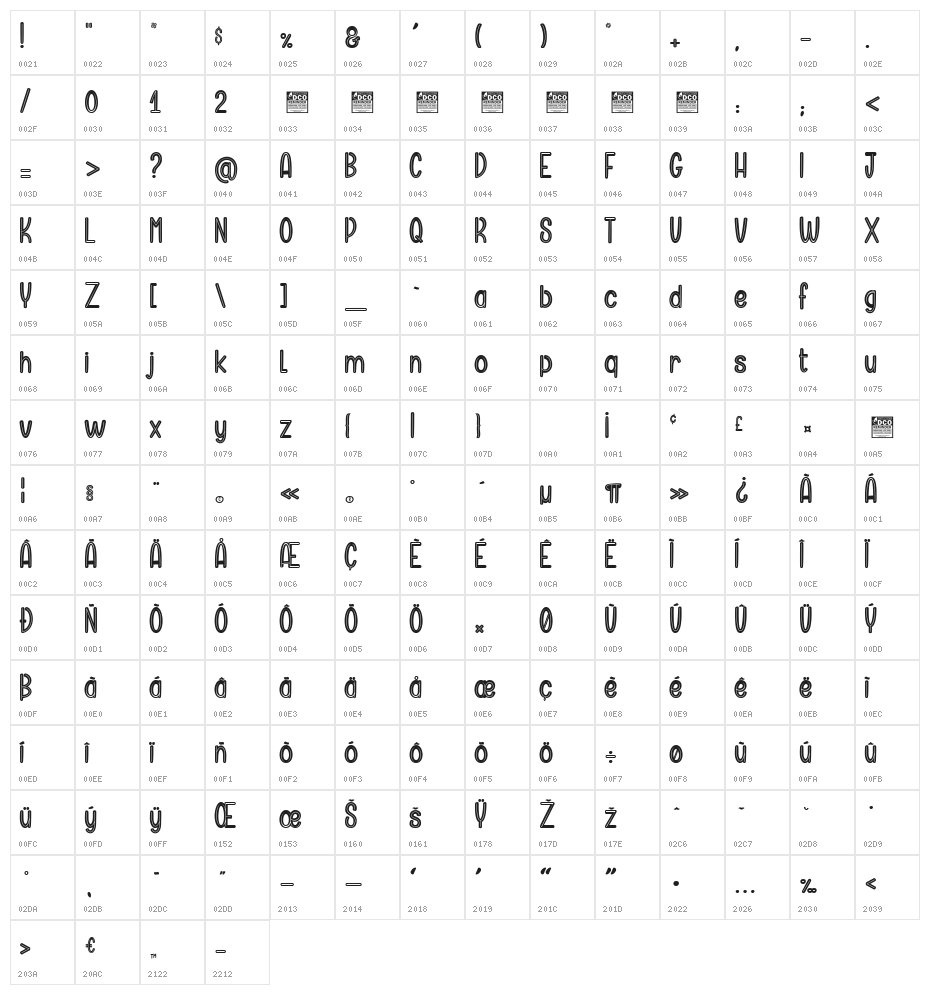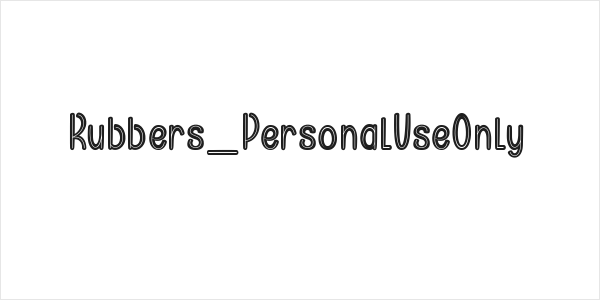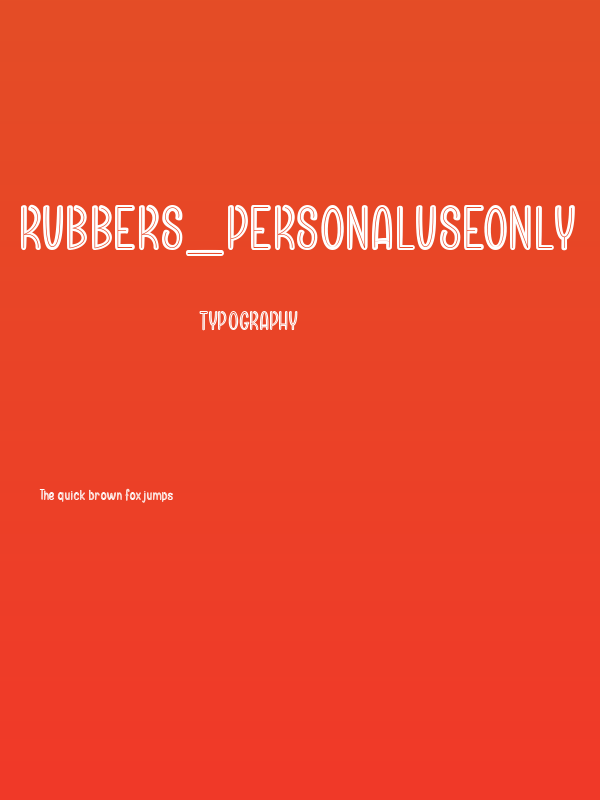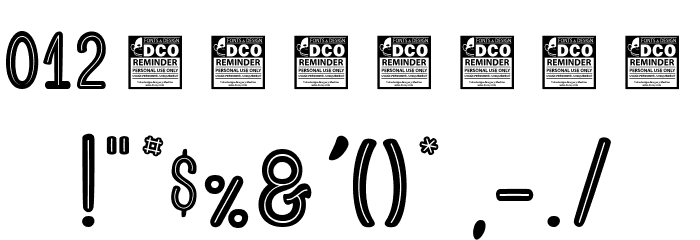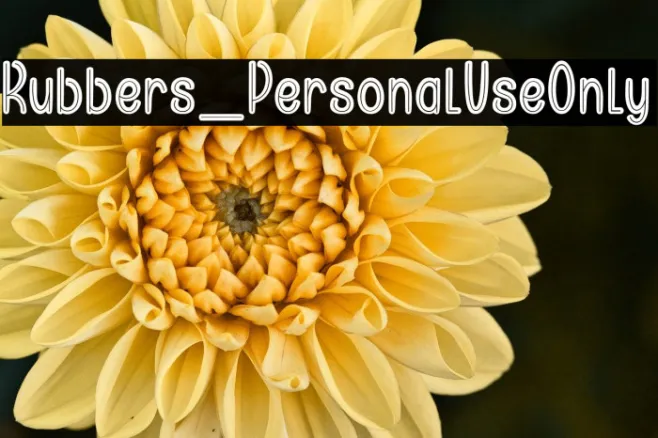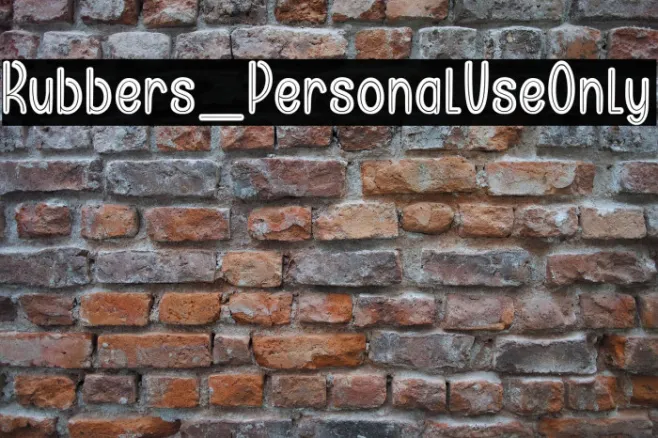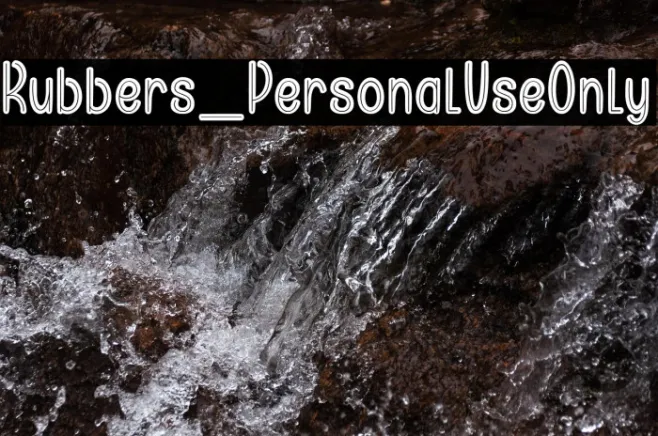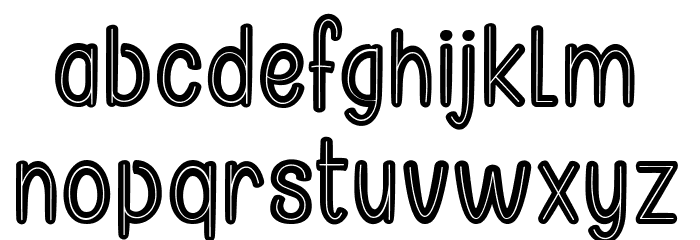
Rubbers_PersonalUseOnly Font
Rubbers_PersonalUseOnly Description
This font features a playful and bold style with hollow, outlined characters that give it a unique, eye-catching appearance. The uppercase and lowercase letters maintain a consistent width, creating a harmonious look. The numbers and special characters are designed to match the overall aesthetic, making them suitable for various creative projects. The font's design is both modern and fun, making it ideal for projects that require a lively and engaging typeface.
| Overall Style | Modern, Fun |
| Proposed Projects | Ideal for children's book covers, playful branding, posters, and creative digital designs. |